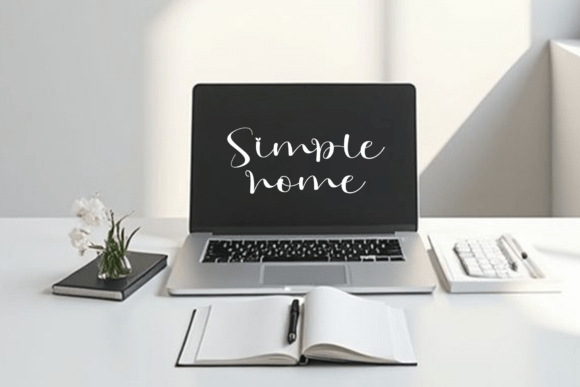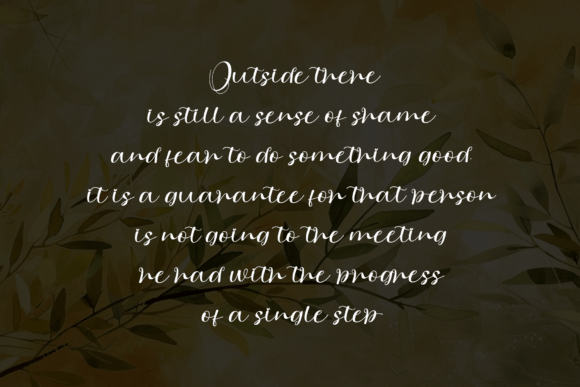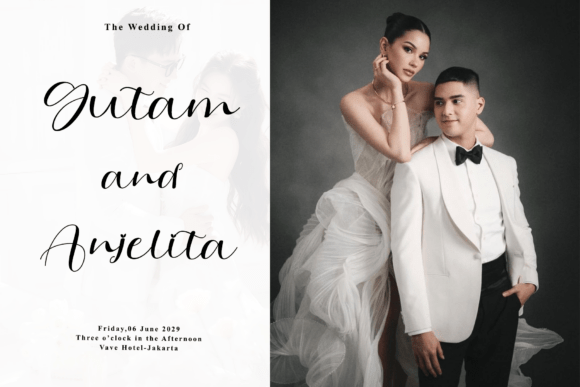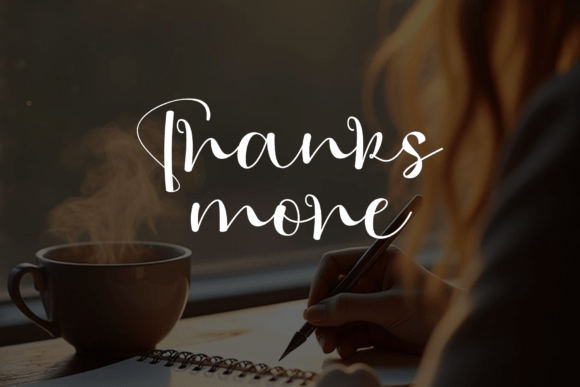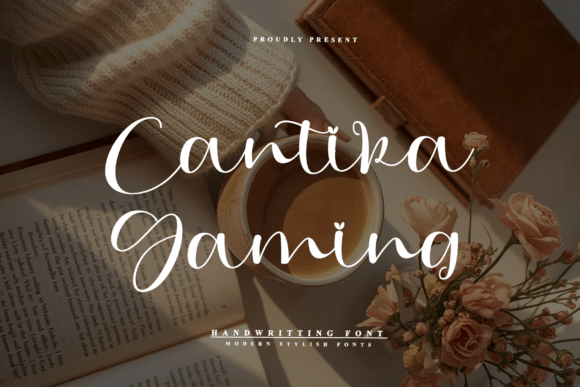
Cantika Gaming Font: Elevate Your Designs with a Timeless Handwritten Style
Are you a designer or crafter looking for a unique and beautiful font to elevate your designs? Look no further than Cantika Gaming Font, a lovely and timeless handwritten font that is sure to make your designs come alive. In this article, we’ll explore the features and benefits of Cantika Gaming Font, and why it’s the perfect choice for creating eye-catching logos, branding, and quotes.
A Unique and Beautiful Touch
Cantika Gaming Font is a handwritten font that boasts a unique and beautiful touch. Every letter has been carefully crafted to ensure that it stands out from the crowd, making it perfect for designers who want to add a personal touch to their work. The font’s unique characteristics make it ideal for creating logos, branding, and quotes that require a special something to make them memorable.
Cantika Gaming Font is the best choice for creating eye-catching logos, branding, and quotes. Its timeless handwritten style ensures that your designs will never go out of fashion, and its unique touch makes it perfect for creating memorable and impactful designs. Whether you’re designing a logo for a new business, creating a brand identity, or crafting a quote for social media, Cantika Gaming Font is the perfect choice.
Cantika Gaming Font offers a range of features and benefits that make it the perfect choice for designers and crafters. Some of the key features include:
- Unique and beautiful handwritten style
- Perfect for logos, branding, and quotes
- Every letter has a unique and beautiful touch
- Timeless style that will never go out of fashion
- Perfect for digital and print designs
Why Choose Cantika Gaming Font?
So why choose Cantika Gaming Font over other fonts? Here are just a few reasons:
- Uniqueness: Cantika Gaming Font offers a unique and beautiful handwritten style that will make your designs stand out from the crowd.
- Timelessness: The font’s timeless style ensures that your designs will never go out of fashion, saving you time and money in the long run.
- Versatility: Cantika Gaming Font is perfect for a range of design applications, from logos and branding to quotes and social media graphics.
- Easy to Use: The font is easy to read and understand, making it perfect for designs that require clear communication.
How to Use Cantika Gaming Font
- Experiment with different sizes and colors: Cantika Gaming Font looks great in a range of sizes and colors, so don’t be afraid to experiment and find the perfect combination for your design.
- Pair it with other fonts: Cantika Gaming Font pairs well with other fonts, so try combining it with a sans-serif font for a bold and eye-catching look.
- Use it for headlines and titles: Cantika Gaming Font is perfect for headlines and titles, where its unique and beautiful style can really shine.
Cantika Gaming Font is a lovely and timeless handwritten font that is perfect for designers and crafters looking to elevate their designs. Its unique and beautiful touch makes it ideal for creating eye-catching logos, branding, and quotes that will make your designs come alive. With its range of features and benefits, Cantika Gaming Font is the perfect choice for anyone looking to add a personal touch to their work.